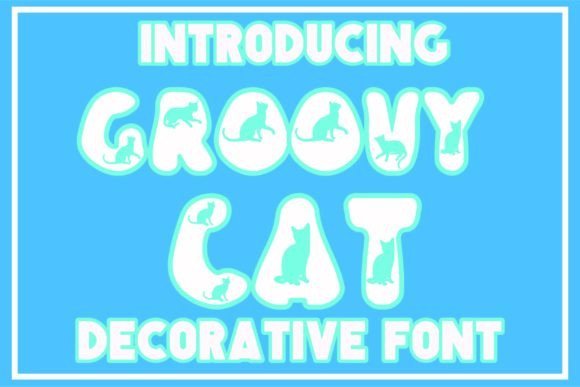
The Perfect Font for a Whimsical Touch
Have you ever been working on a design project and suddenly, the perfect font pops into your mind, bringing your entire concept to life? For designers, it’s a magical moment that can make all the difference between a good design and a great one. For me, it was the moment I stumbled upon the Groovy Cat Font – a cool and friendly decorative font that instantly added a playful touch to my project.
Whether you’re working on a cartoon-related design, a children’s game, or just any creation that needs a lovely touch, the Groovy Cat Font is an amazing choice. Its unique design and fun vibe make it a valuable asset for designers who want to add a bit of whimsy to their work. With the Groovy Cat Font, you can create designs that are not only visually appealing but also convey a sense of friendliness and approachability.
Groovy Cat Font Key Features
- Unique Characteristics: The font features a unique, playful cat-inspired design, with rounded edges and whimsical details, making it perfect for adding a touch of fun and personality to your designs.
- Style Options: Groovy Cat Font comes in a variety of styles, including Regular, Bold, Italic, and Bold Italic, giving you the flexibility to choose the perfect look for your project.
Groovy Cat Font Review
I’ve been playing around with the Groovy Cat Font, and I have to say it’s a pretty fun addition to any design project. ✨ The font’s playful, hand-drawn style is perfect for capturing a laid-back, retro vibe.
- ✨ The Groovy Cat Font is highly customizable, allowing you to adjust the weight, width, and spacing to fit your design needs.
- ✨ The Groovy Cat Font is relatively easy to read, even at smaller font sizes, which is a big plus for designers working with limited space.
That being said, there are a few limitations to consider:
- ⚠️ The font may not be the best choice for formal or professional projects, as its playful style may come across as unprofessional.
- ⚠️ The font’s hand-drawn nature can sometimes make it difficult to read, particularly at larger font sizes.
Overall, I think the Groovy Cat Font is a great choice for designers looking to add some personality to their projects. Just be mindful of its limitations and use it in contexts where its playful style will shine.
The Groovy Cat Font is ideal for designs that require a playful, retro vibe. Some common use cases include:
- Party invitations
- Music festival posters
- Food truck branding
- Retro-themed social media graphics
Remember to experiment with different font sizes, colors, and combinations to get the most out of the Groovy Cat Font.